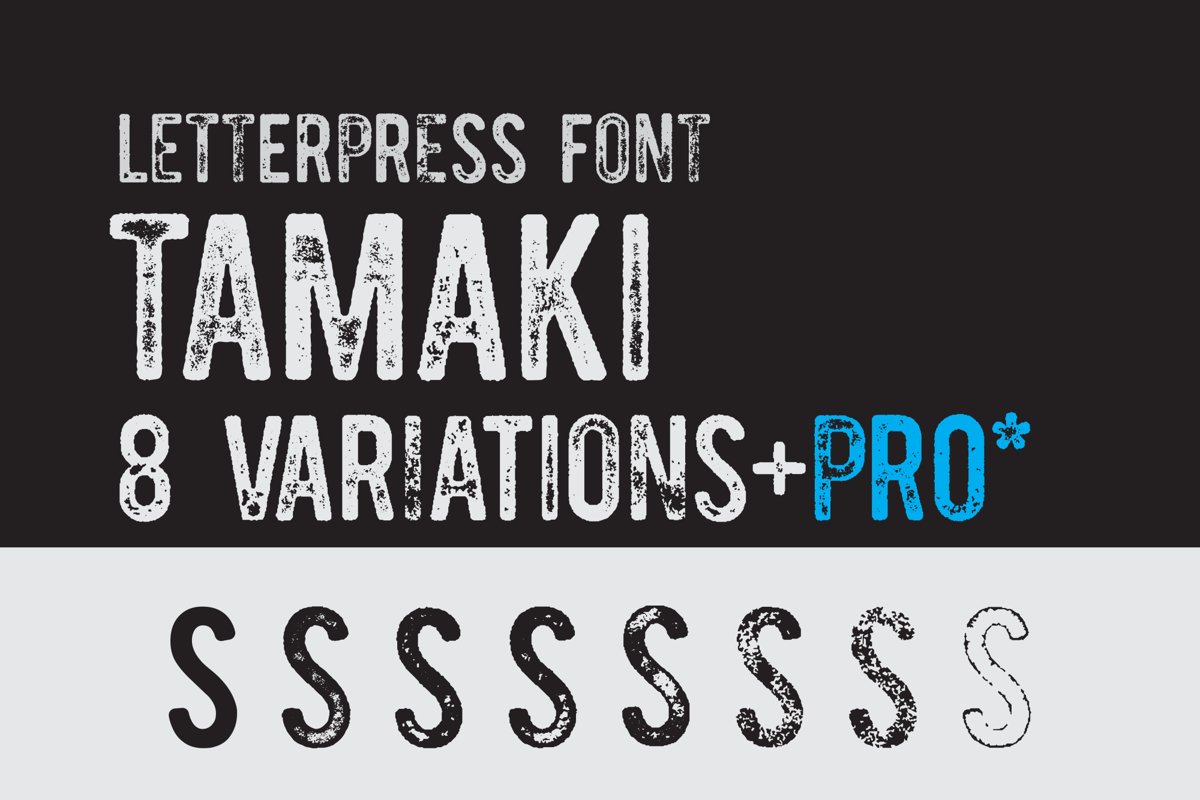
Tamaki-seven
tamaki-six
tamaki-three
tamaki-four
tamaki-two
tamaki-one
Handy-Regular
Tamaki-Pro
tamaki-five
tamaki-zero
This pack contains 17 fonts, most famous one is Tamaki Pro,This font is crafted to give a real look of a letterpress font. We have Applied Contextual Substitutions feature in fontlab with 5 different alternative of each letter (standard English alphabets). No more repeating same contours of letters. Every letter replaces itself automatically to 5 variations to give you real look.We are giving 7 variations in separate font of Tamaki as well.Handwriter and Handy fonts also a big part of this bundle.